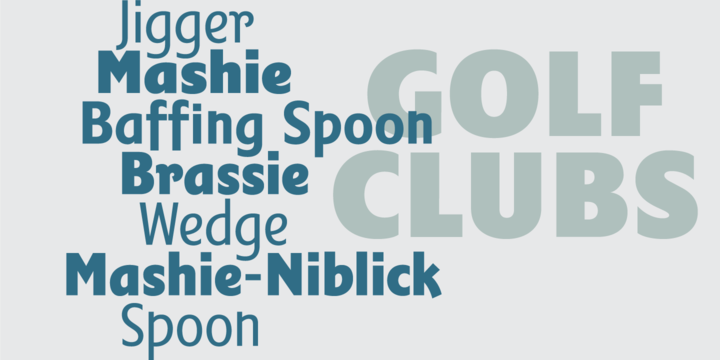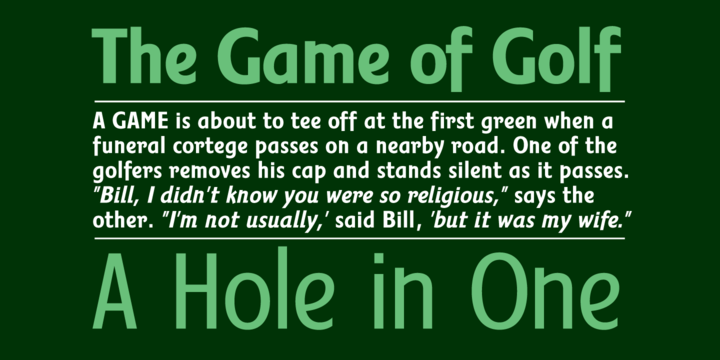
Introducing Fairway Family Font: A Casual yet Versatile Soft Sans
In the world of typography, fonts play a crucial role in conveying messages, expressing emotions, and creating visual identities. For designers and crafters, finding the perfect font can be a daunting task. However, if you’re looking for a typeface that exudes a sense of casualness and quirkiness while still being legible and versatile, look no further than the Fairway Family Font.
The Thinking Behind Fairway
The creators of Fairway Family Font had a clear vision in mind: to design a relatively conventional soft sans with a certain amount of movement at the top of the x-height line. This distinctive feature gives the font its unique character, setting it apart from more traditional sans-serif typefaces. The face is casual and quirky, yet it retains a level of sophistication that makes it suitable for use as a text face.
Key Features of Fairway Family Font
- Soft Sans Design: Fairway’s soft sans design gives it a friendly and approachable feel, making it perfect for designs that require a more relaxed tone.
- Movement at the X-Height Line: The subtle movement at the top of the x-height line adds a touch of whimsy and visual interest to the font.
- Casual yet Legible: Despite its casual appearance, Fairway remains highly legible, even at smaller font sizes.
- Versatile: Fairway’s versatility makes it suitable for a wide range of design applications, from digital media to print materials.
Design Applications for Fairway Family Font
Fairway Family Font’s unique blend of casualness and legibility makes it an excellent choice for various design projects. Here are a few examples:
- Branding and Identity: Use Fairway to create a friendly and approachable brand identity that stands out from the crowd.
- Digital Media: Fairway’s soft sans design and legibility make it perfect for digital media, such as websites, social media graphics, and email newsletters.
- Print Materials: Fairway’s versatility extends to print materials, including brochures, flyers, and business cards.
- Crafting and DIY Projects: Crafters and DIY enthusiasts can use Fairway to add a personal touch to their projects, such as handmade cards, scrapbooking, and craft tutorials.
Tips for Using Fairway Family Font
To get the most out of Fairway Family Font, here are some tips to keep in mind:
- Experiment with Font Sizes: Fairway’s legibility makes it suitable for use at various font sizes. Experiment with different sizes to find the perfect balance for your design.
- Pair with Other Fonts: Fairway pairs well with other fonts, especially those with a more traditional or serif design. Experiment with font combinations to create visual interest.
- Use for Body Text: Fairway’s legibility makes it an excellent choice for body text. Use it to create readable and engaging content.
| Font Name | Fairway Family Font |
| Author | Alan Meeks |
In conclusion, the Fairway Family Font is a versatile and unique typeface that offers a refreshing alternative to traditional sans-serif fonts. Its casual and quirky design makes it perfect for designers and crafters looking to add a personal touch to their projects. With its soft sans design, movement at the x-height line, and legibility, Fairway is an excellent choice for a wide range of design applications. Whether you’re working on a branding project, digital media, or a crafting project, Fairway Family Font is definitely worth considering.